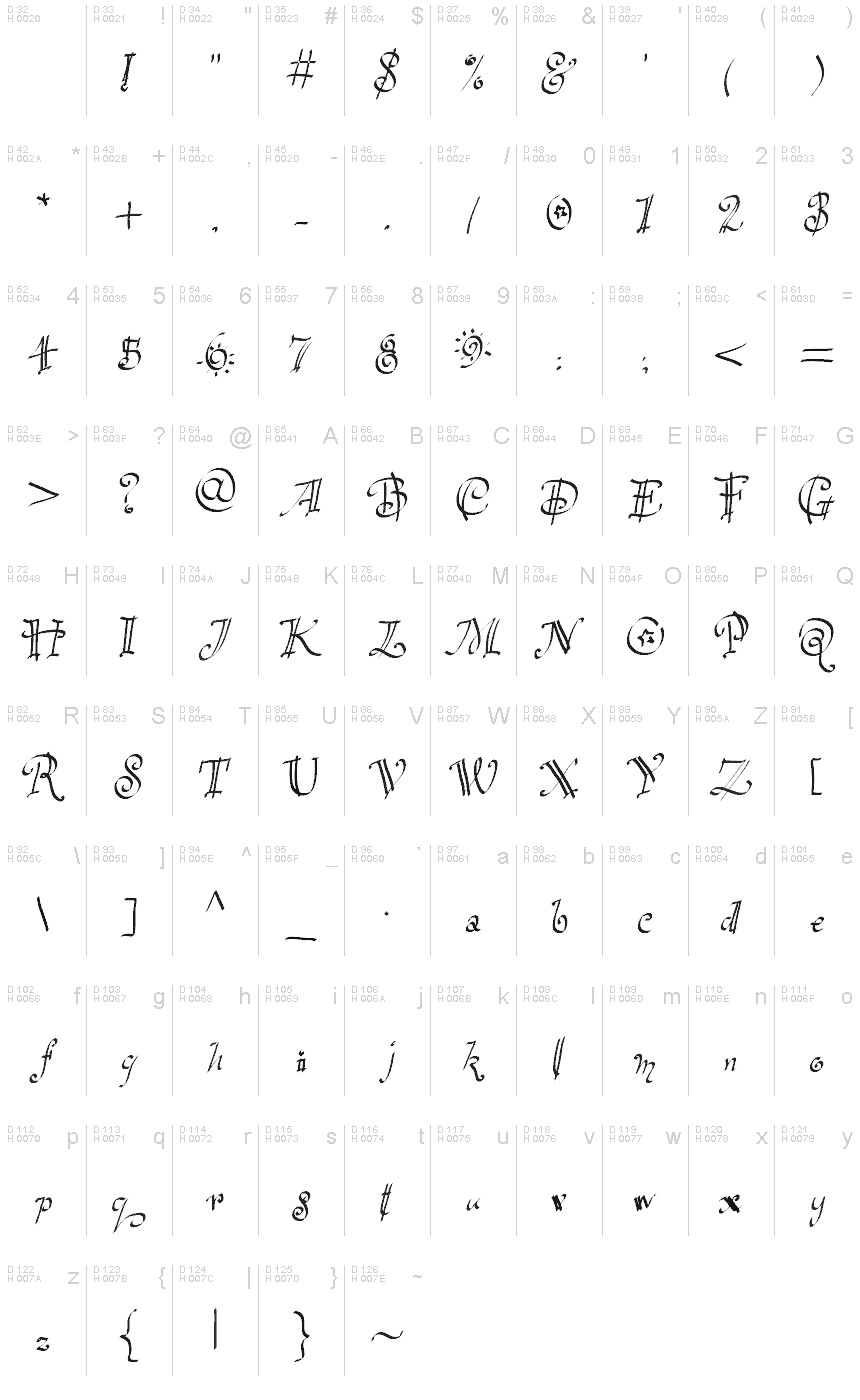
PartyHand
Party Hand is a captivating display font designed by Jon Grafton. Its curly, whimsical letterforms exude a sense of playfulness and energy, making it an ideal choice for a variety of creative applications. The font's distinctive character strokes and flourishes add a touch of sophistication, elevating designs in branding, event invitations, packaging, and more. Party Hand's stylistic versatility allows it to seamlessly transition between formal and informal settings, bringing a touch of elegance and flair to any project.
This font excels in capturing attention and evoking a festive, celebratory mood. Its unique aesthetic lends itself well to applications requiring a touch of personality and charm, such as advertising campaigns, product labeling, and social media graphics. Party Hand's distinctive personality makes it a versatile tool for designers seeking to add a memorable and visually striking element to their work.